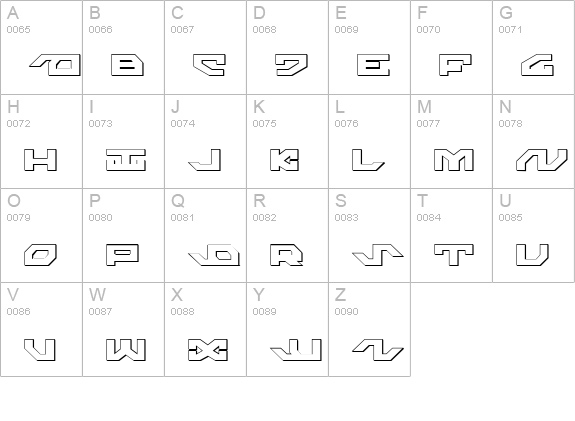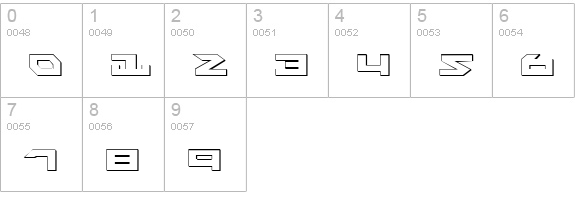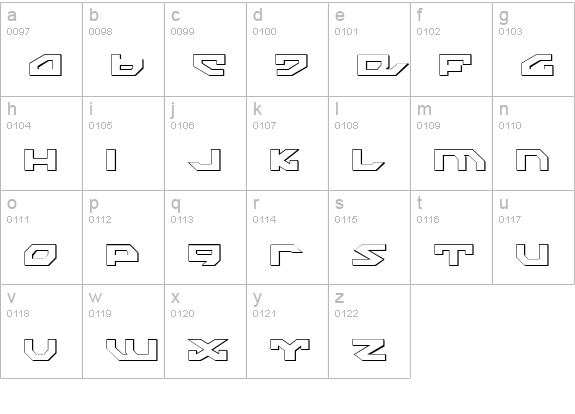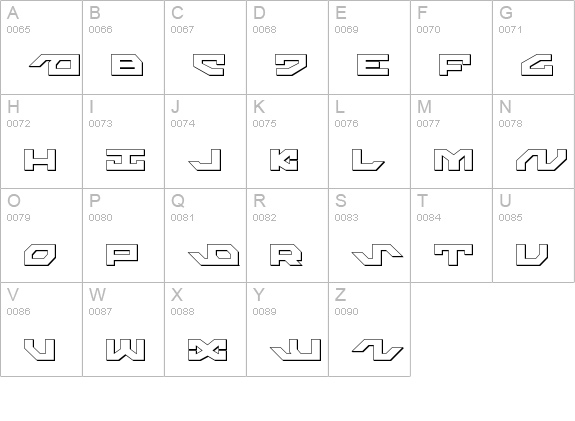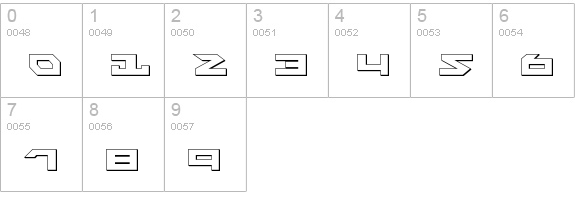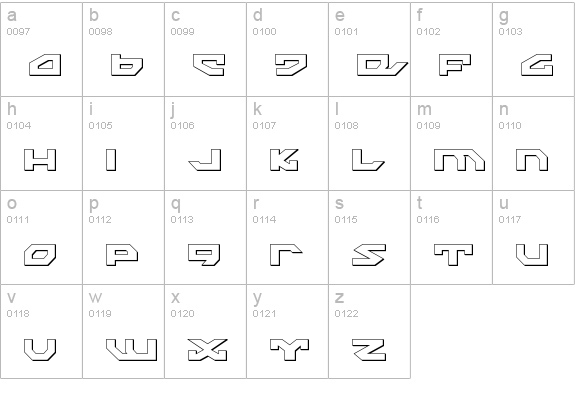
Nightrunner Shadow font is a bold and striking typeface that exudes a sense of mystery and intrigue. With its unique shadow effect, this font is perfect for creating eye-catching designs that demand attention. The sharp angles and intricate details give Nightrunner Shadow a dynamic and modern look, making it a versatile choice for various projects. The best part about Nightrunner Shadow font is that it is completely free to download at FontsMarket.com. Whether you're working on a poster, logo, or website design, this font will add a touch of sophistication and style to your work. Stand out from the crowd and make a statement with Nightrunner Shadow font, available for free download now.